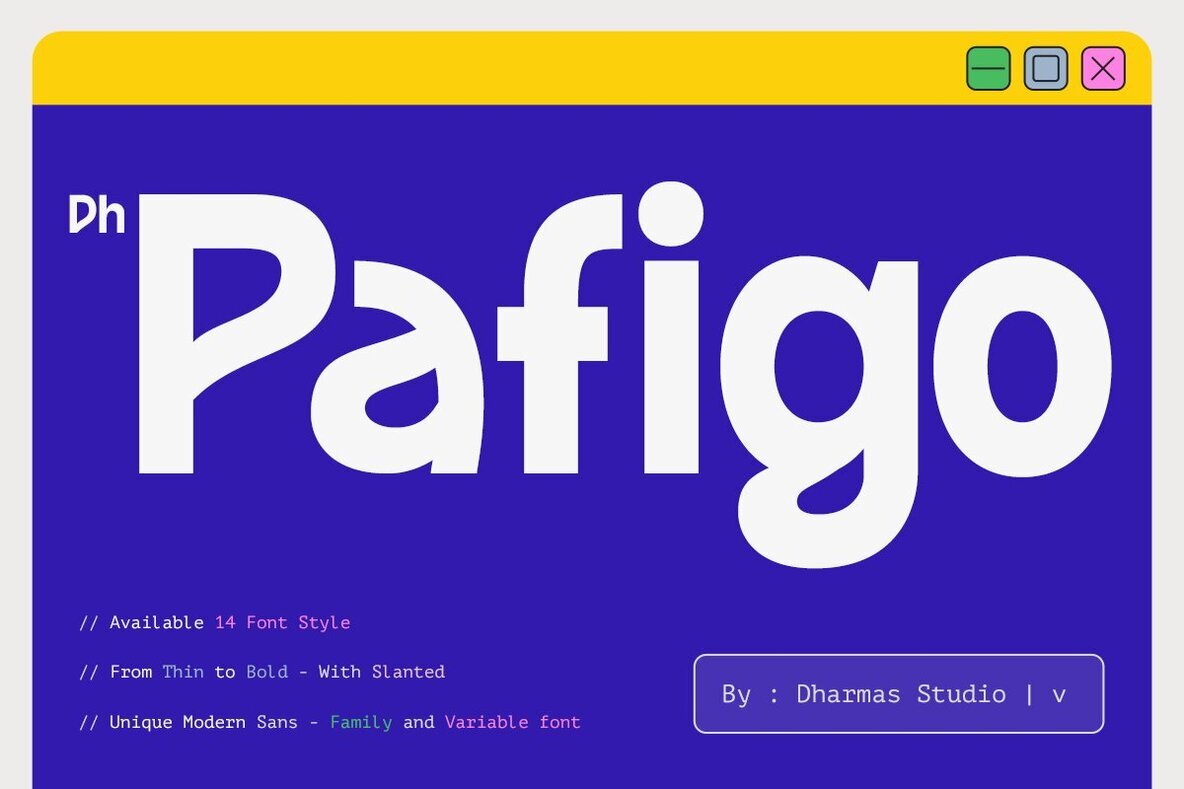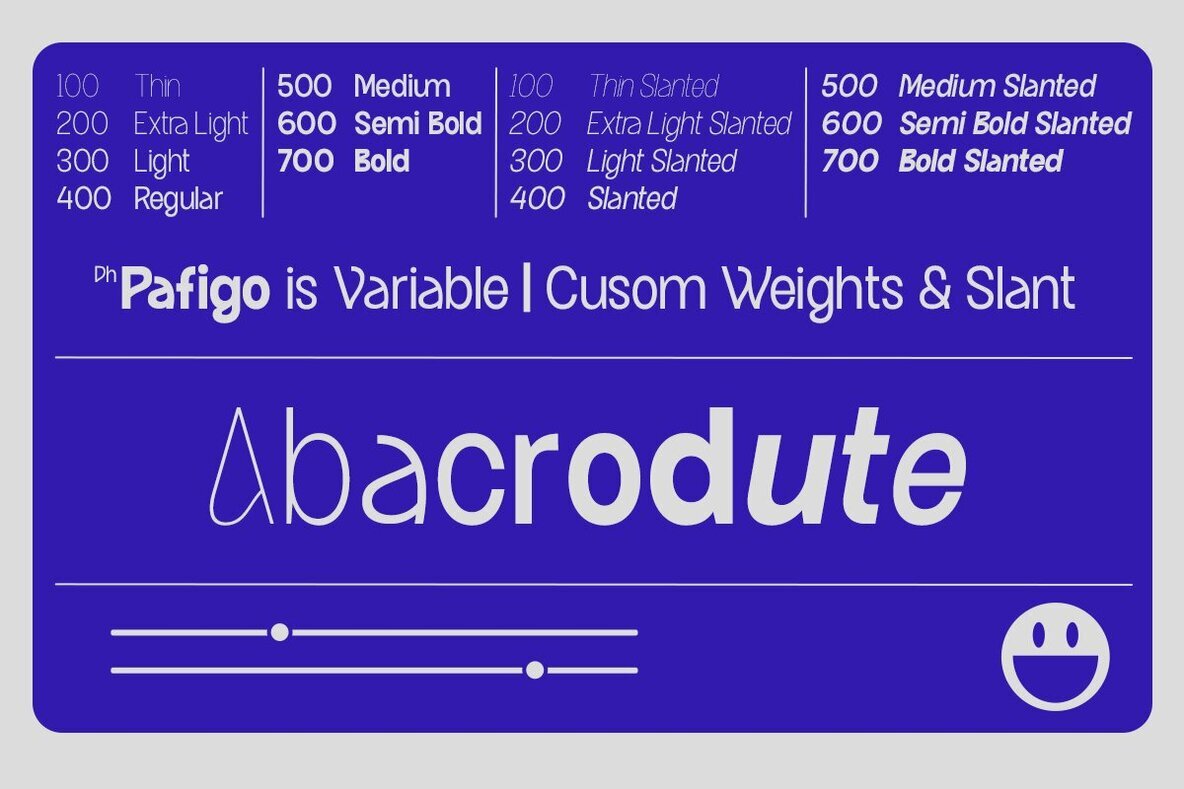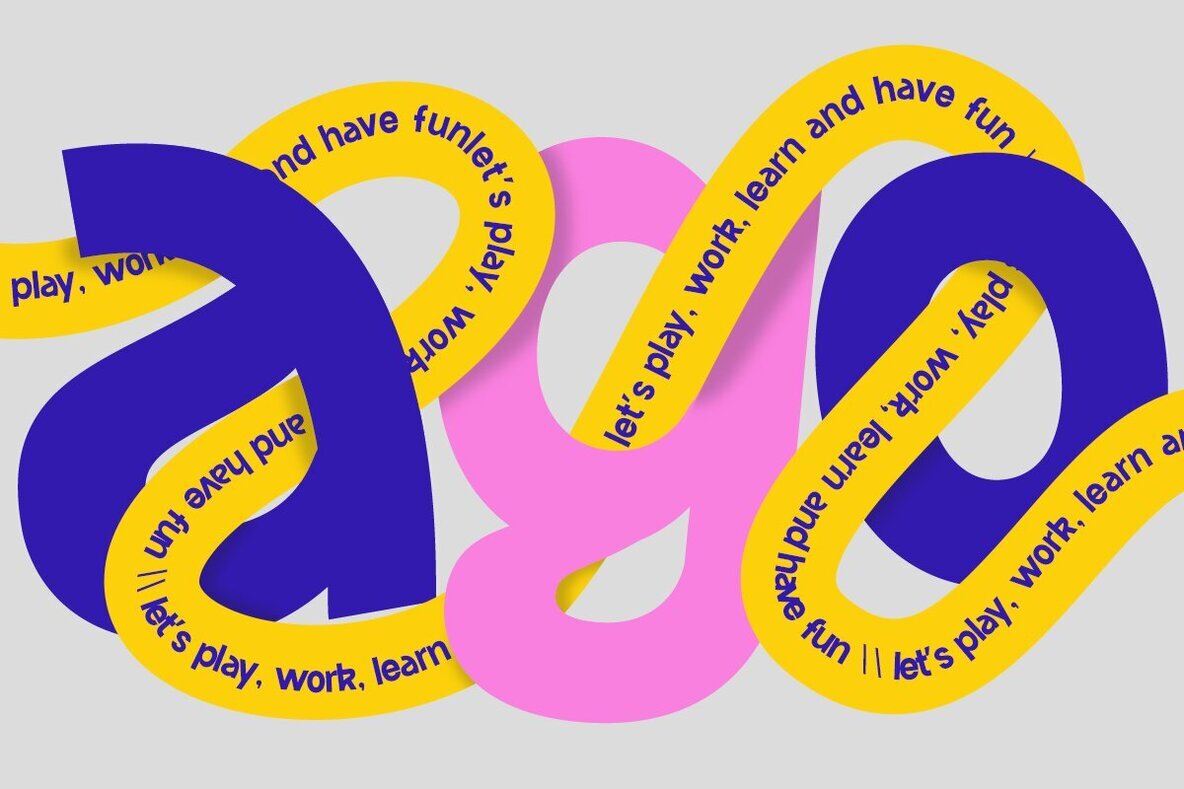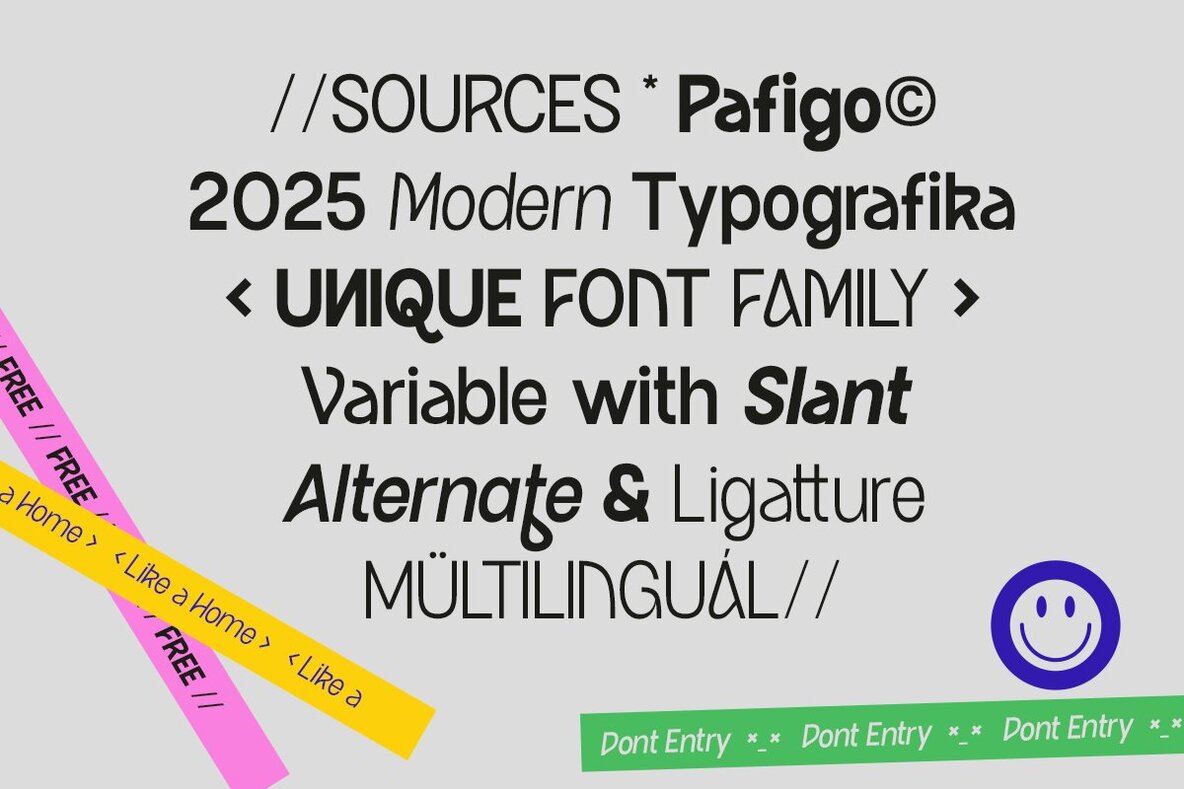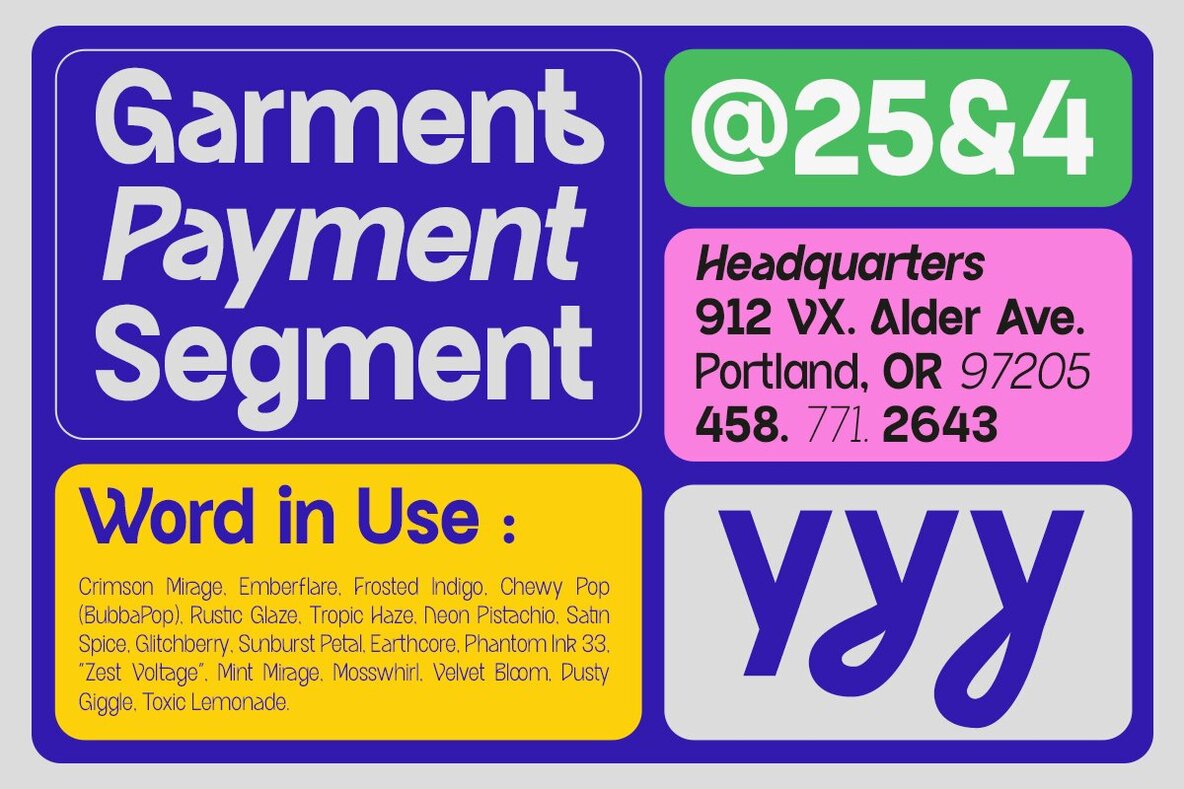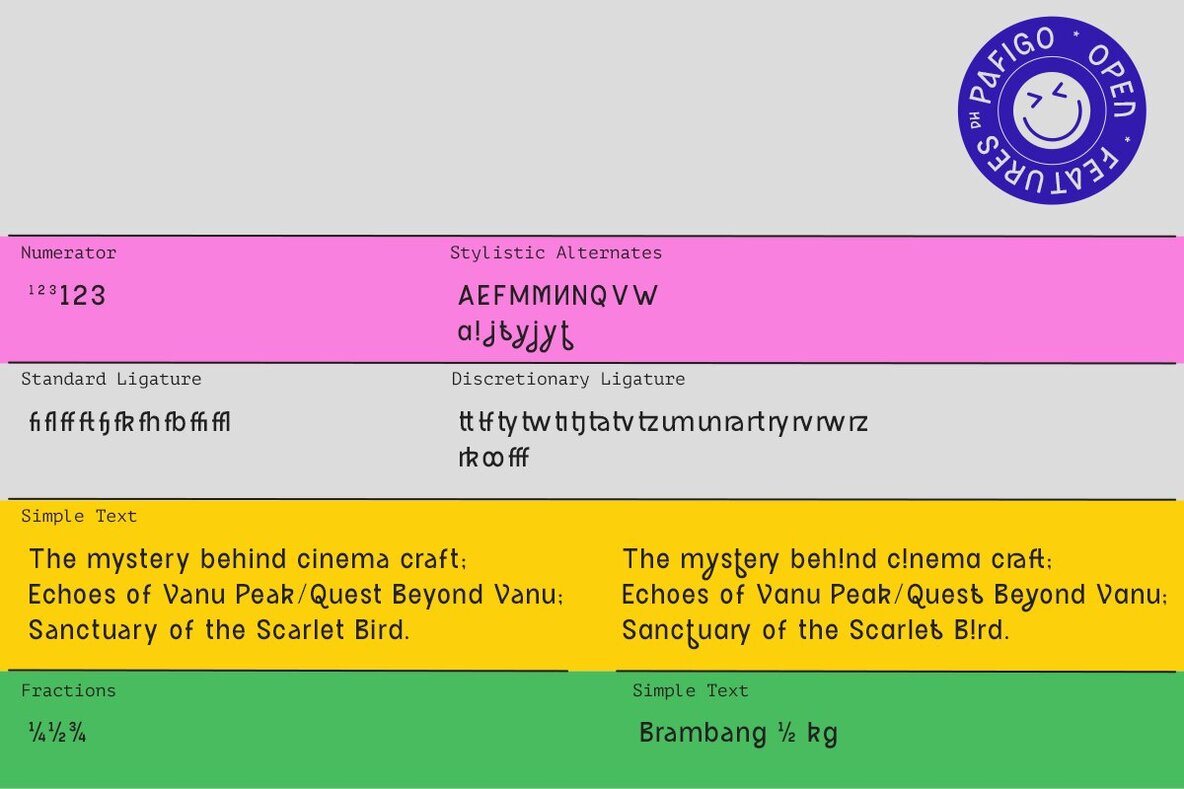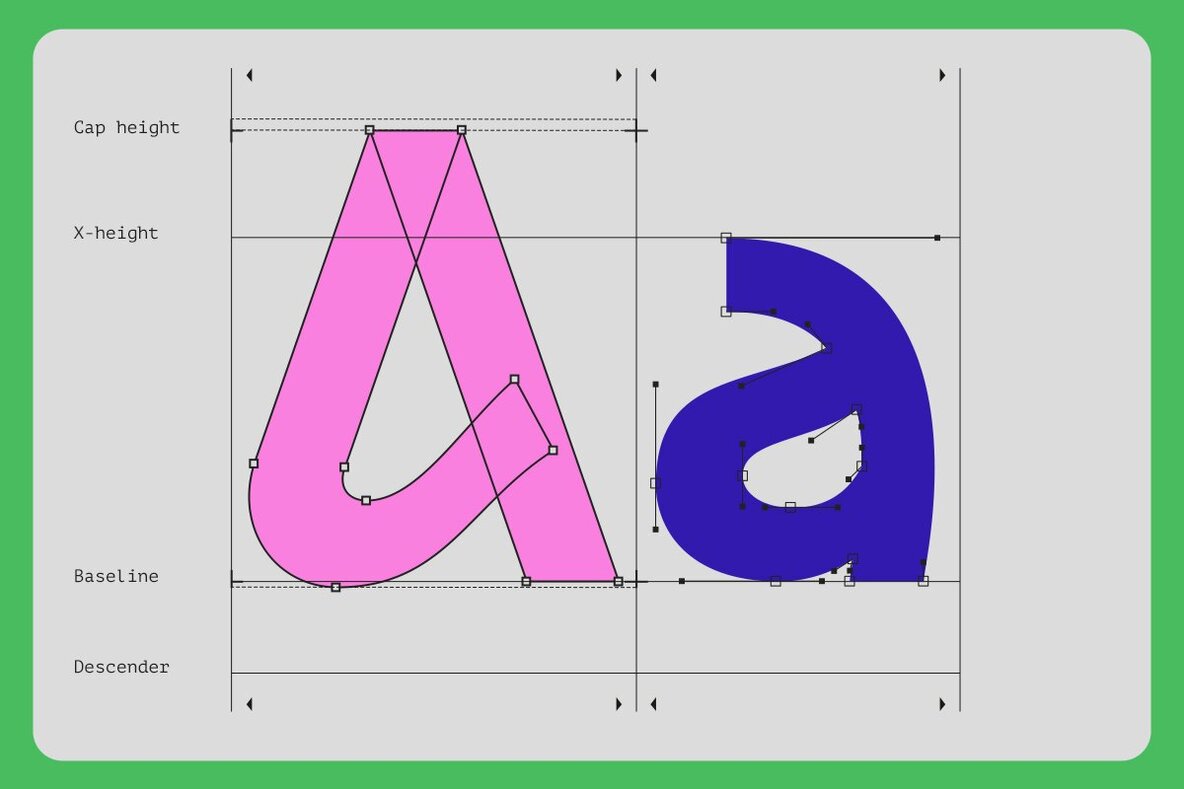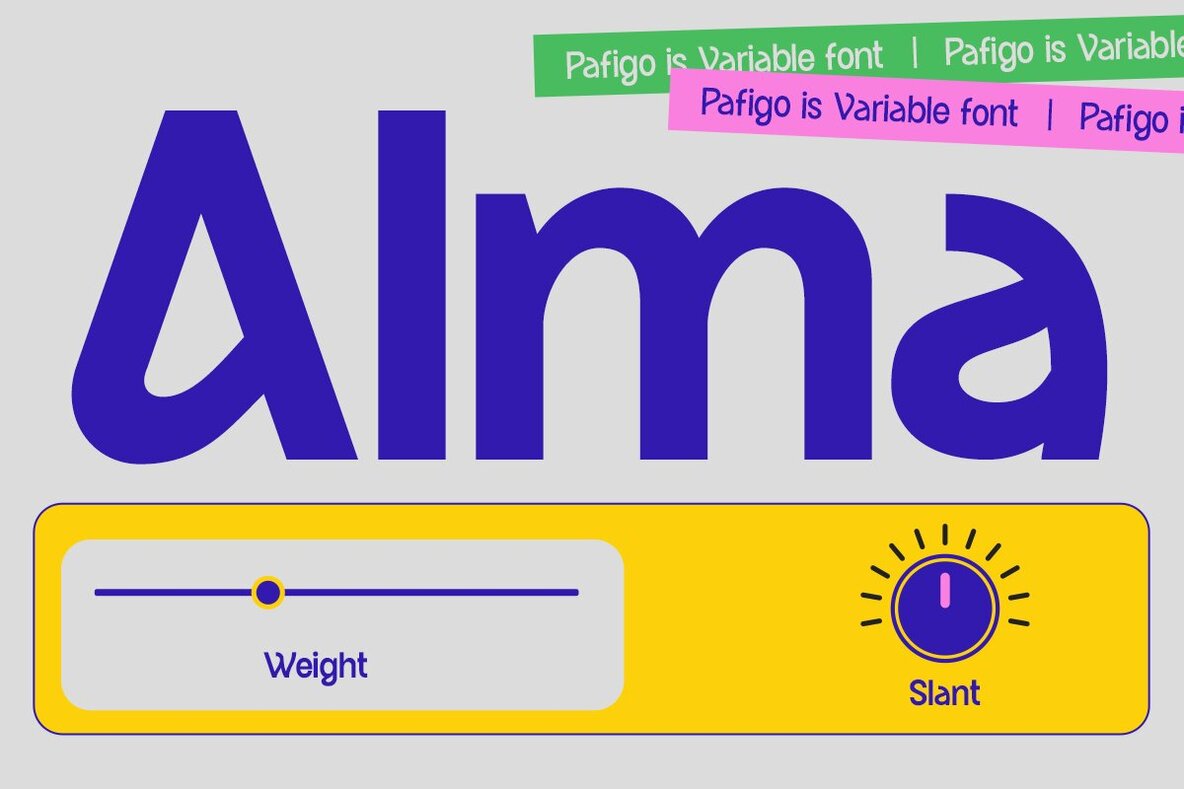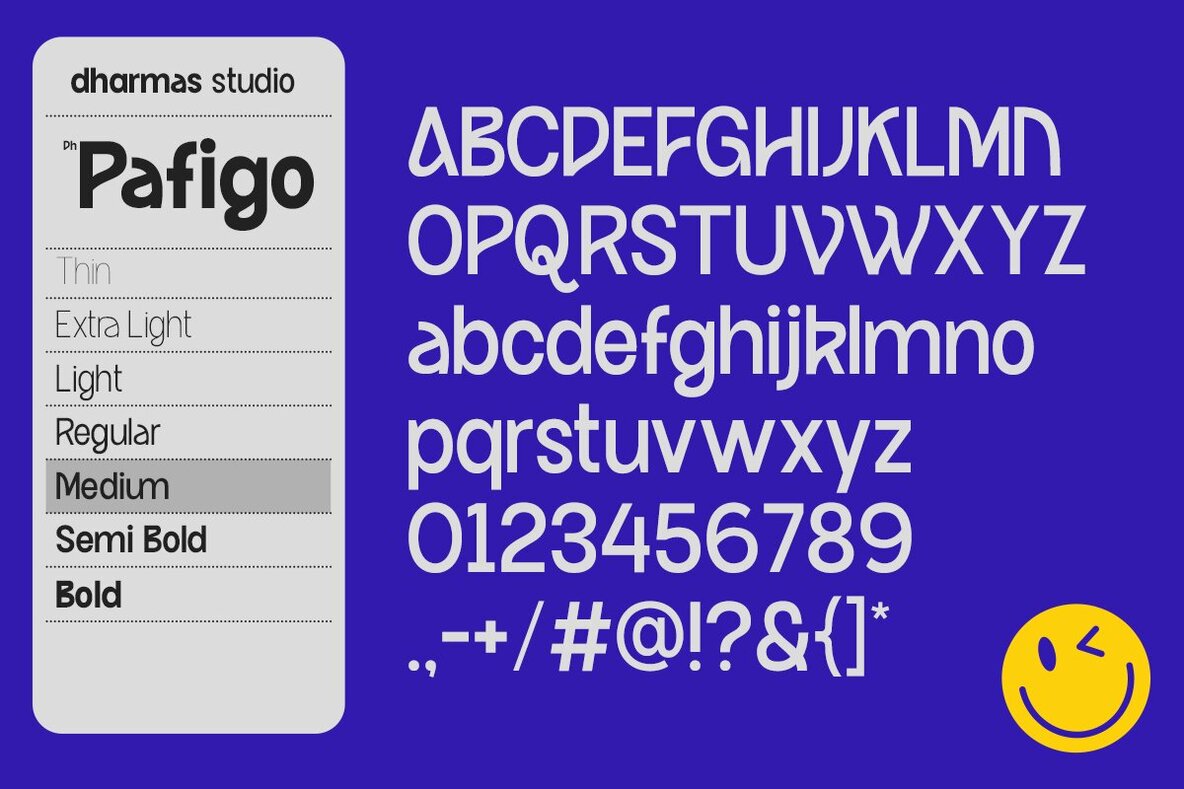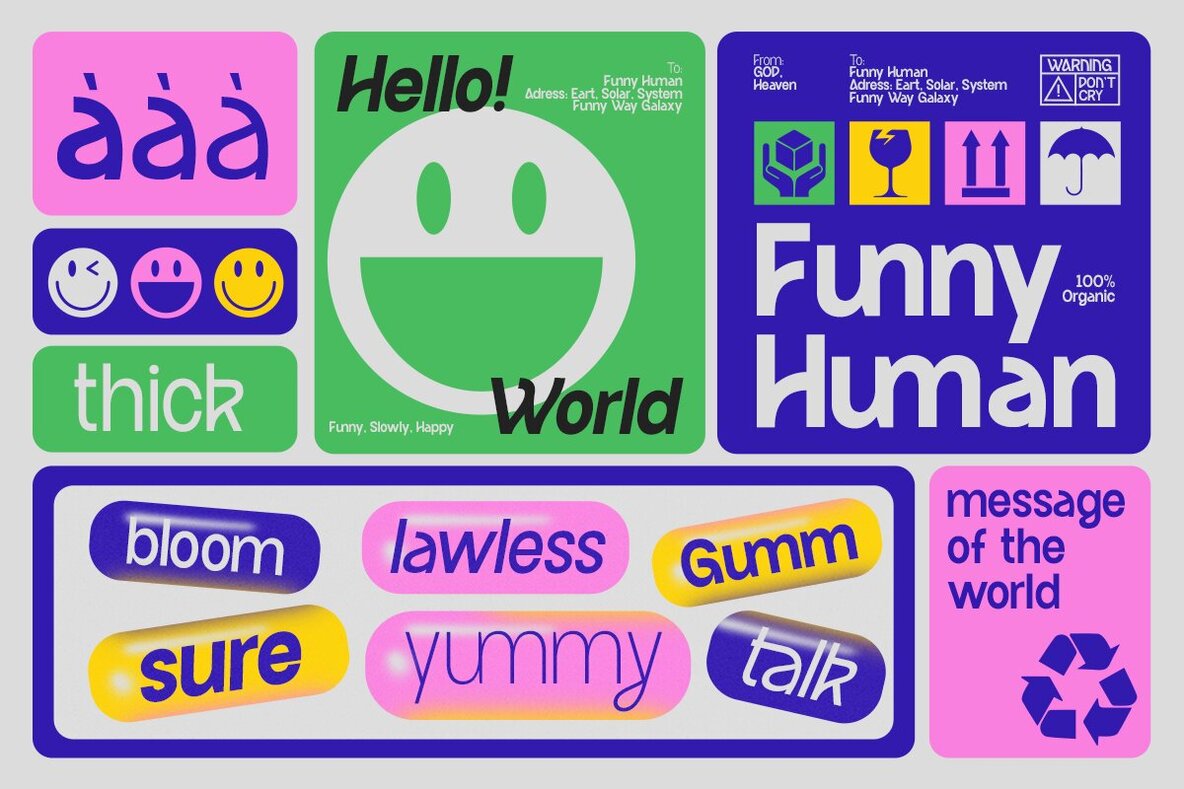
Dh Pafigo Font
Dh Pafigo – A Friendly Sans Typeface for Modern Brands Dh Pafigo is a modern sans serif typeface with a clean, rounded design that blends geometric structure with a friendly tone. Designed for bold branding, digital content, packaging, and editorial use, its 14 styles and 48+ alternates give designers creative control. Dh Pafigo stands out for its balance between clarity and charm—perfect for confident, expressive brands. Built for brands that want to feel bold yet approachable, Dh Pafigo is ideal for lifestyle, tech, and editorial design. With multilingual support, Canva compatibility, and OpenType features, it’s a go-to font for global creatives who value both style and substance. Font Features: Multilingual Characters: Afrikaans, Albanian, Asu, Basque, Bemba, Bena, Breton, Chiga, Cornish, Dutch, English, Estonian, Filipino, Finnish, Friulian, Galician, German, Gusii, Indonesian, Irish, Italian, Kabuverdianu, Kalenjin, Kinyarwanda, Luo, Luxembourgish, Luyia, Machame, Makhuwa-Meetto, Makonde, Malagasy, Manx, Morisyen, North Ndebele, Nyankole, Oromo, Portuguese, Quechua, Romansh, Rombo, Rundi, Rwa, Samburu, Sango, Sangu, Scottish Gaelic, Sena, Shambala, Shona, Soga, Somali, Spanish, Swahili, Swedish, Swiss.